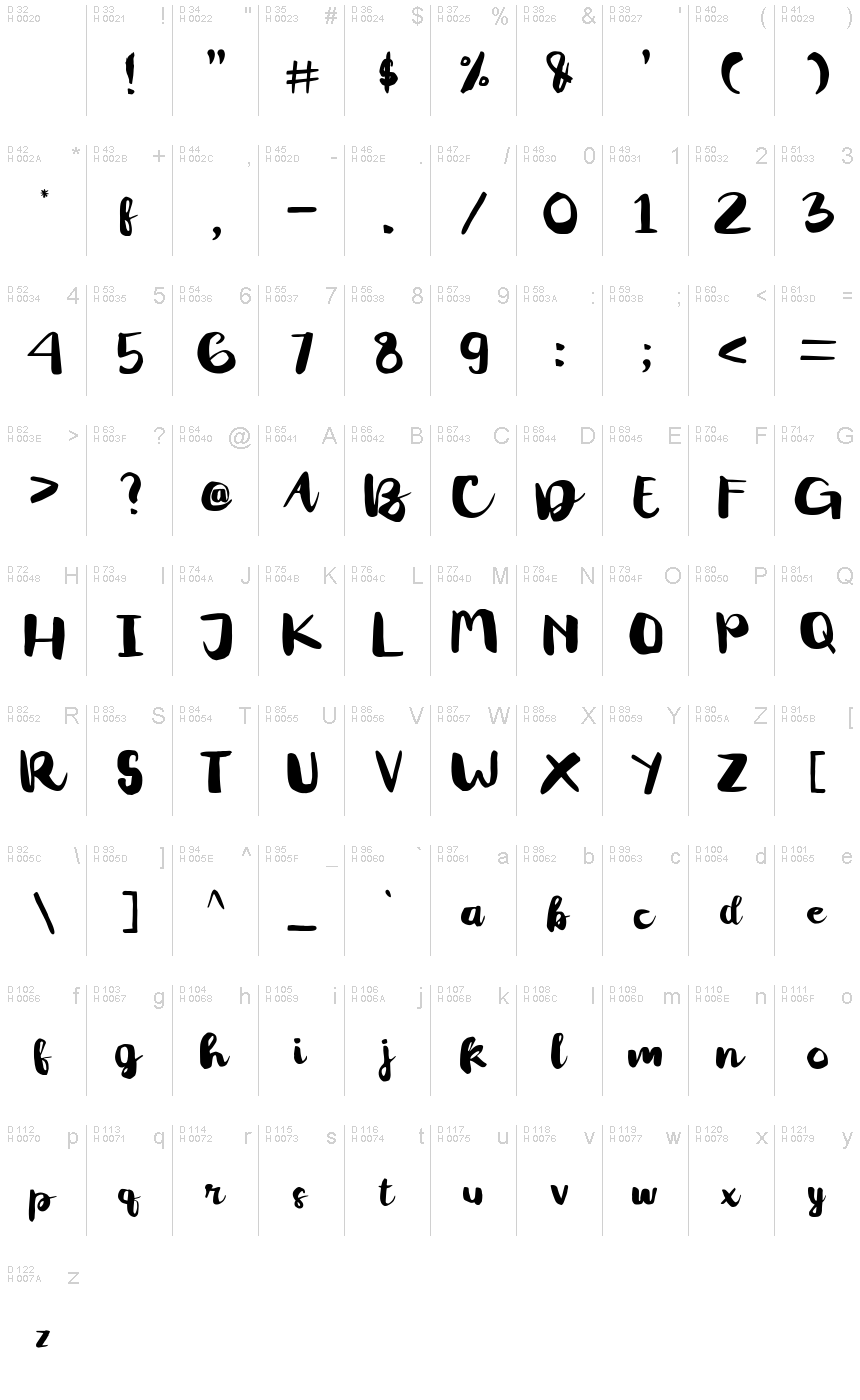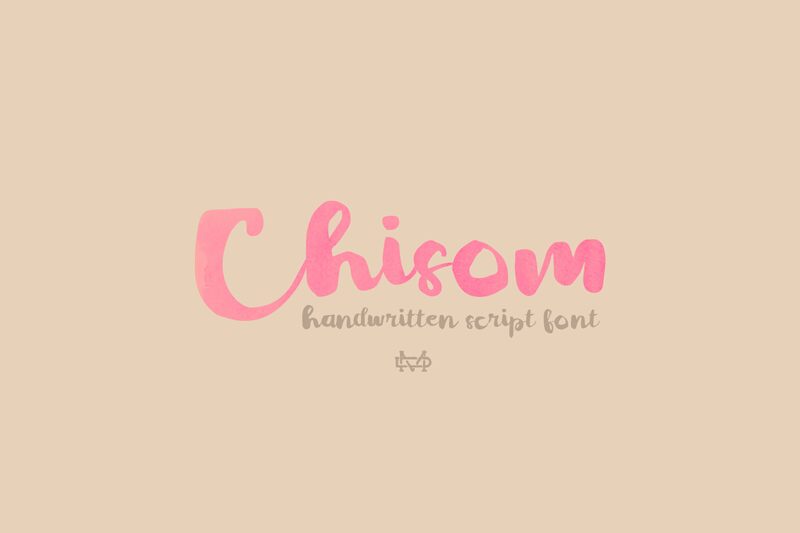
Chisom Demo Regular
Chisom font is a bold brush font full of casual, organic, and expressive design elements. MadeDeduk’s typeface has a modern flair allowing for a unique human touch that typographic artists will find appealing. Chisom is a beautiful example of hand-lettering given the digital treatment for free use in visual design projects.
Use it to adorn social media templates, business cards, gift cards, product promotions, posters and invites. It can also be considered for branding products related to nature such as food delivery services or home goods. Even simple uses such as signatures or UIs can benefit from the expressive characters within this font.